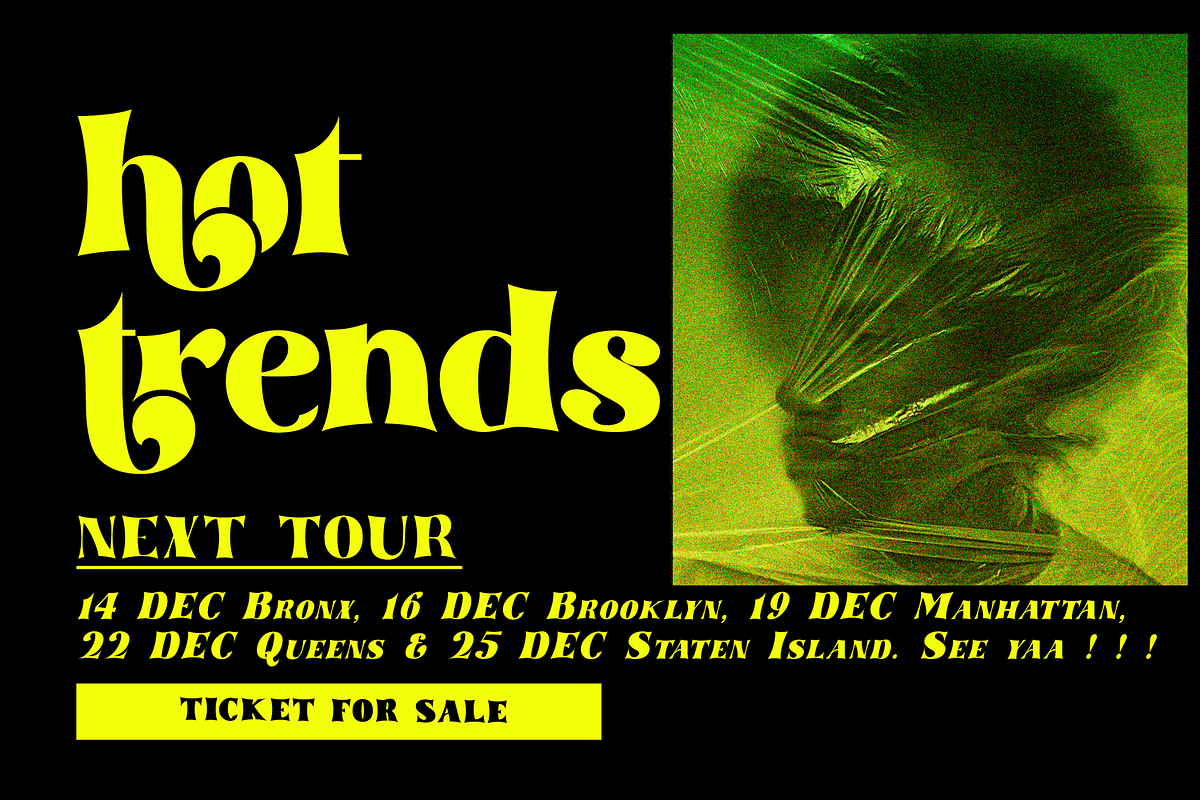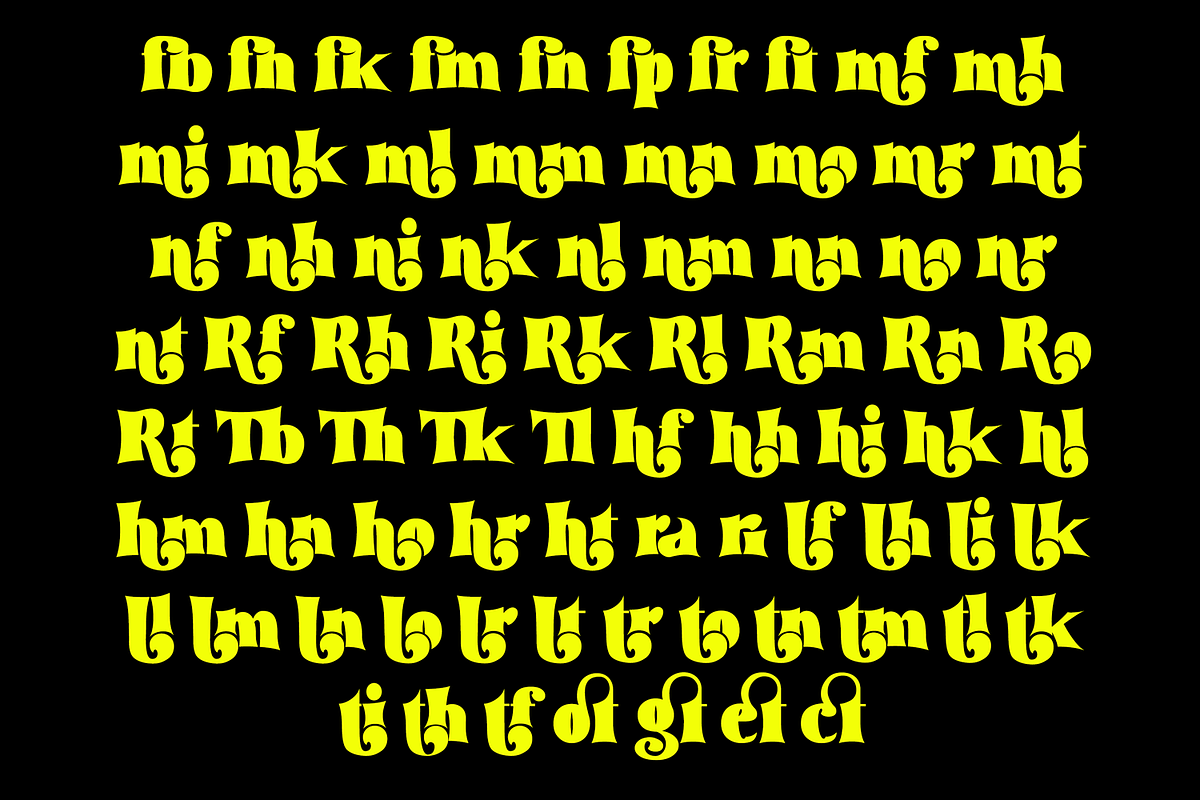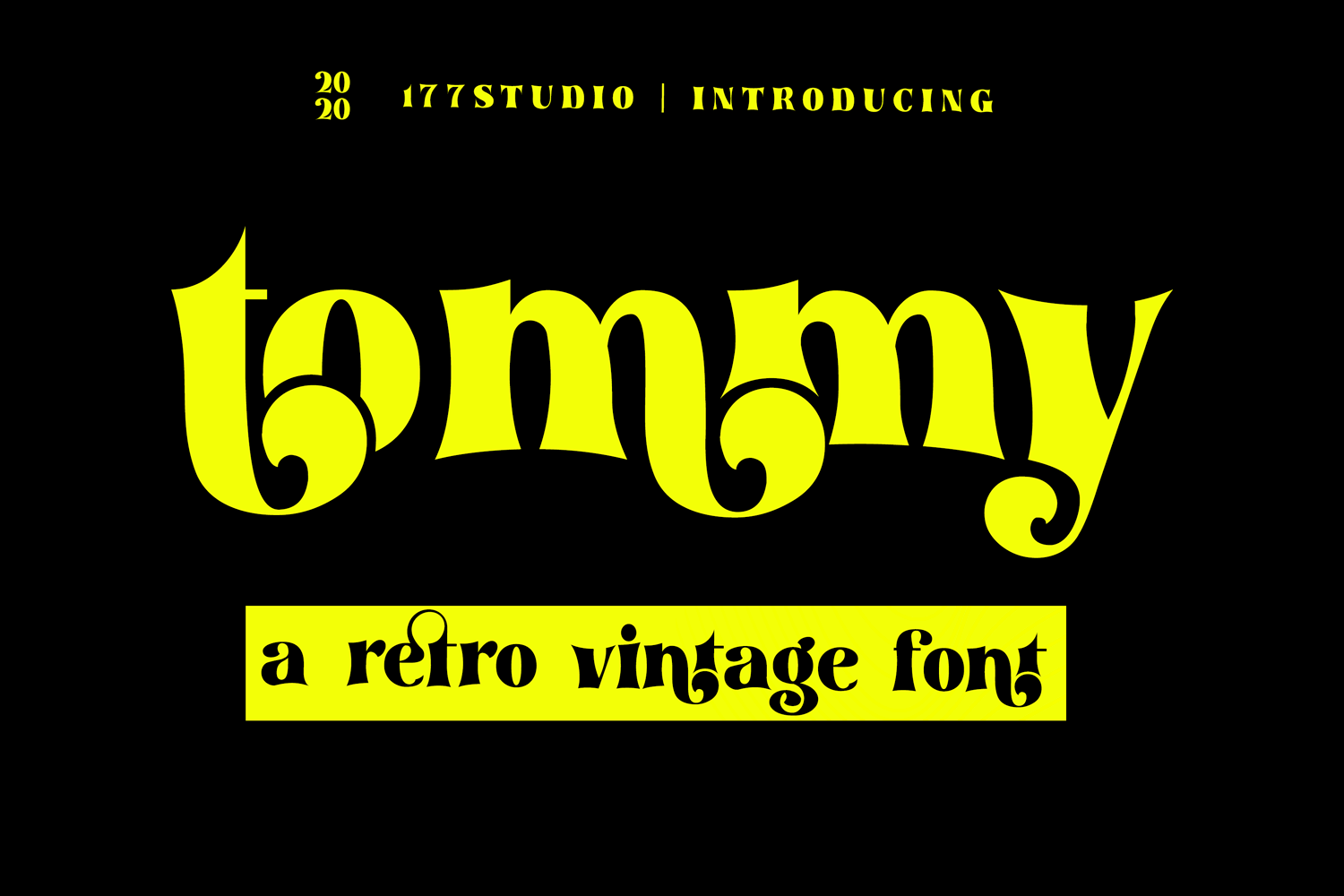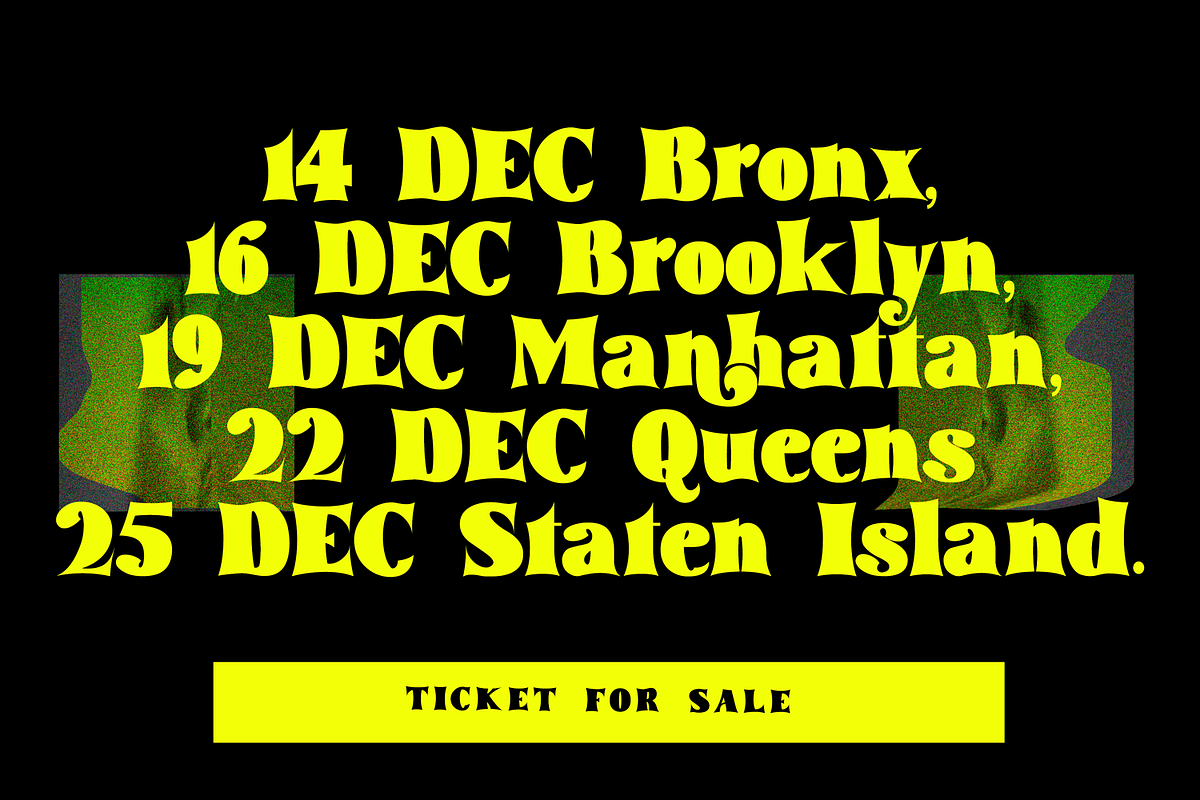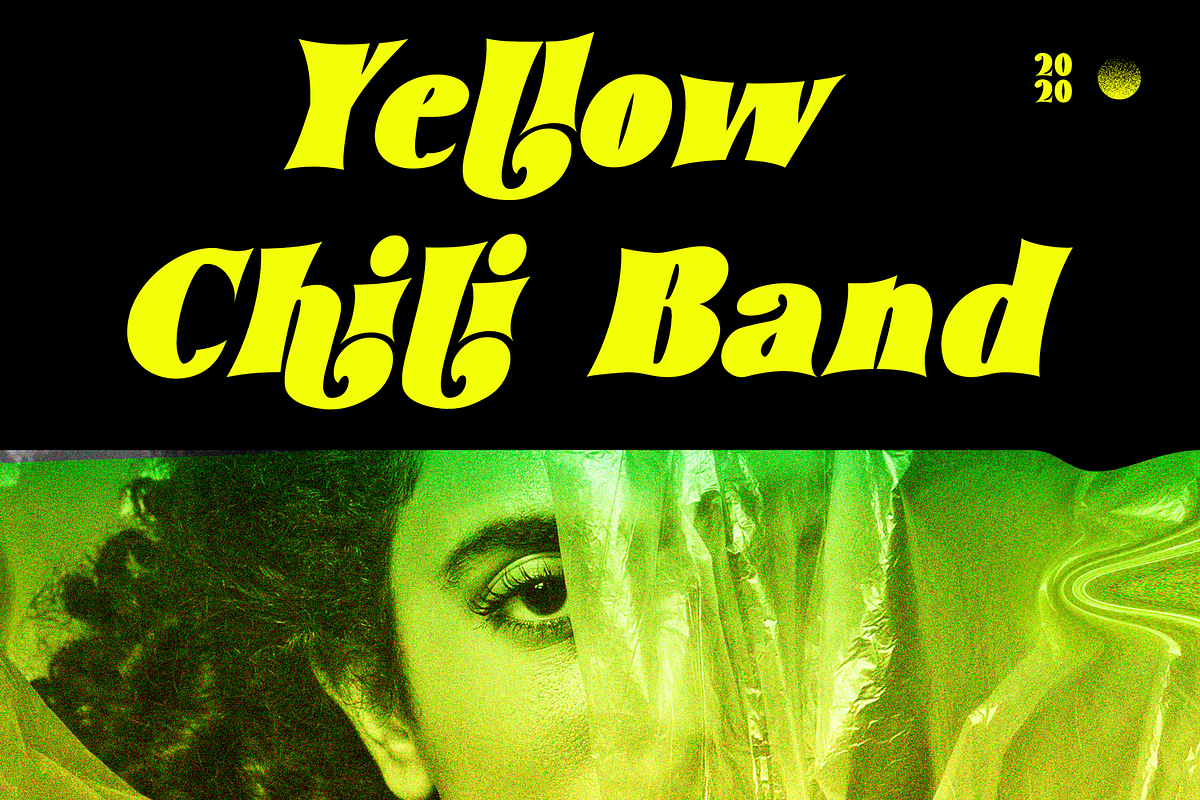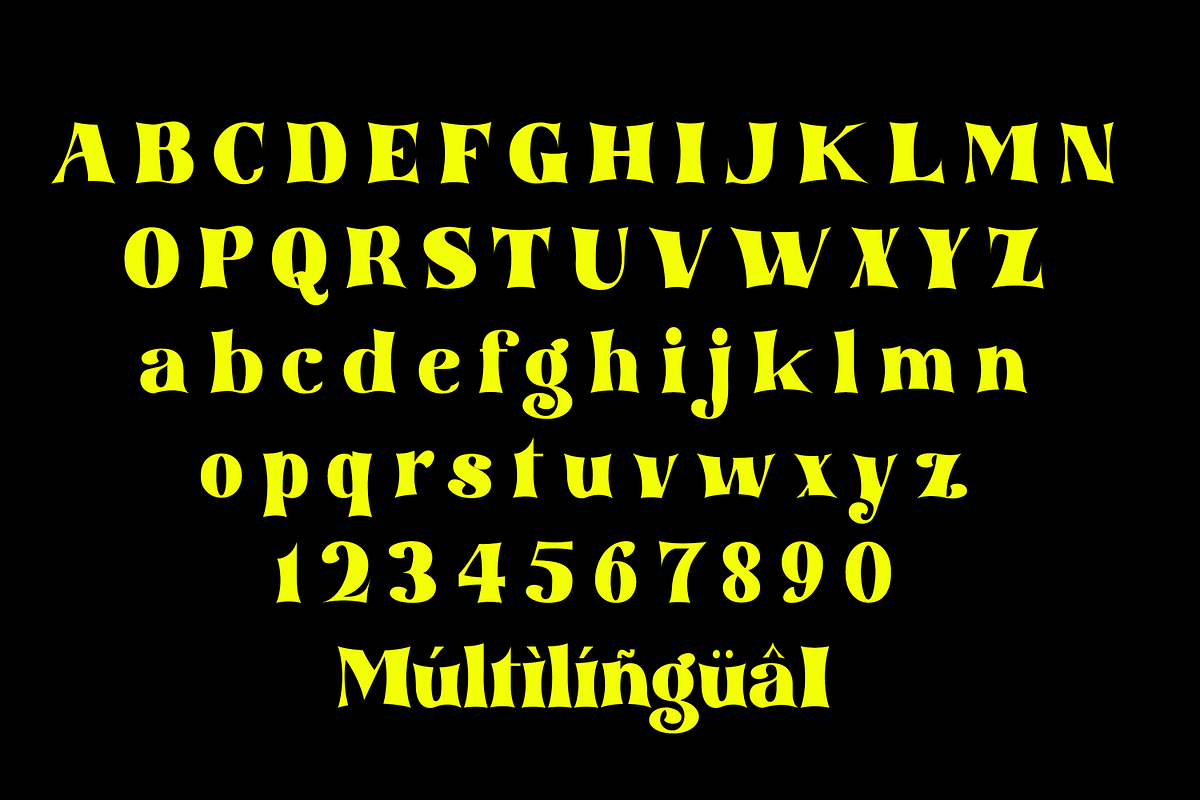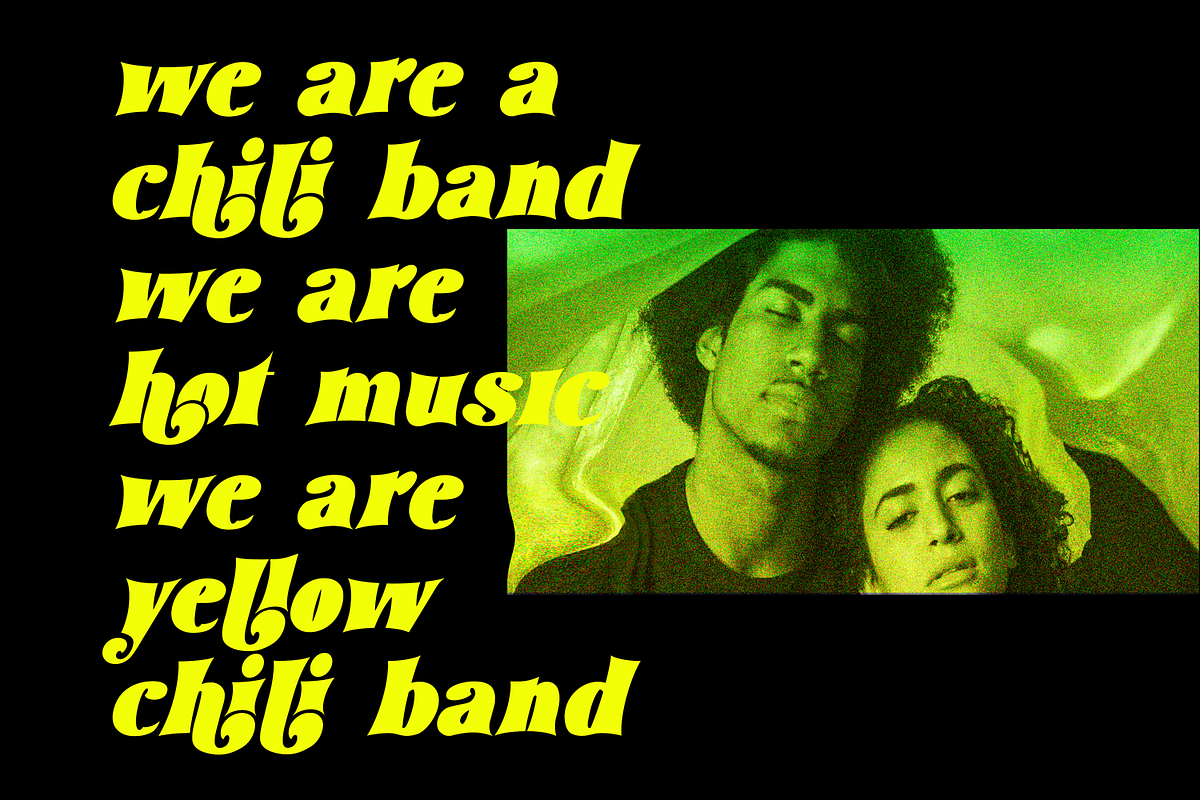
tommy - Retro Serif Font
tommy - Retro Serif Font is a stylish font that is both retro and bold font. A brand new serif with a bonus sans for perfect pairing! I am constantly combining sans and serifs in my design work, and wanted to create the perfect combo for you too!
tommy fits perfectly into those nostalgic moodboards and vintage logos. It come with a unique lower and uppercase plus numbers, punctuation & multilingual letters.
To make it look more unique, here we prepared some ligatures:
fb fh fk fm fn fp fr ft mf mh mi mk ml mm mn mo mr mt nf nh ni nk nl nm nn no nr nt Rf Rh Ri Rk Rl Rm Rn Ro Rt Tb Th Tk Tl hf hh hi hk hl hm hn ho hr ht ra ri lf lh li lk ll lm ln lo lr lt tr to tn tm tl tk ti th tf ot gt et ct
tommy is also included full set of:
- Special Ligatures